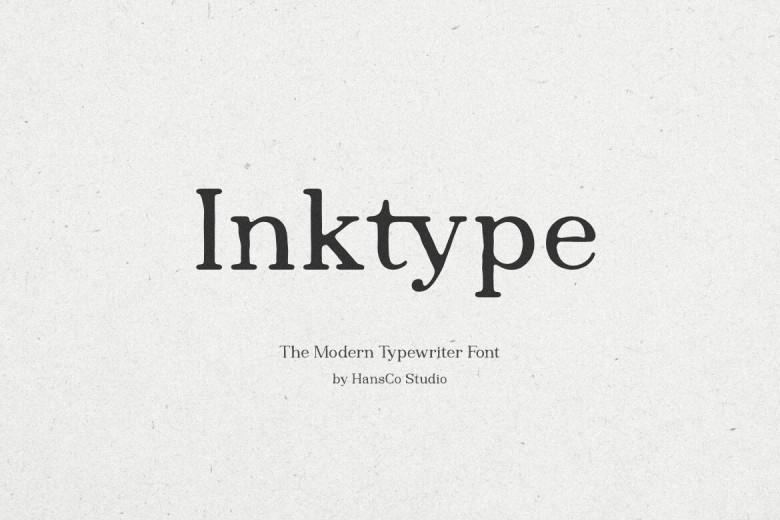
Inktype Font
Inktype Font is a cute, modern, hand drawn serif font that is explicitly drawn with a little of vintage feel. Or maybe you need fonts for Instagram or for any other DIY projects, this font will help to turn any idea into blossoming masterpiece. This font is also suitable for making printables, such as posters, logos, slogans, blog headings, fashion, advertisements, cards, visiting cards, apparels, stationery, and virtually anything.
There are options in the full upper case and lower case, with figures and all types of punctuation, and with very deep language support, it will be a very practical addition to your project.
Inktype Serif Font